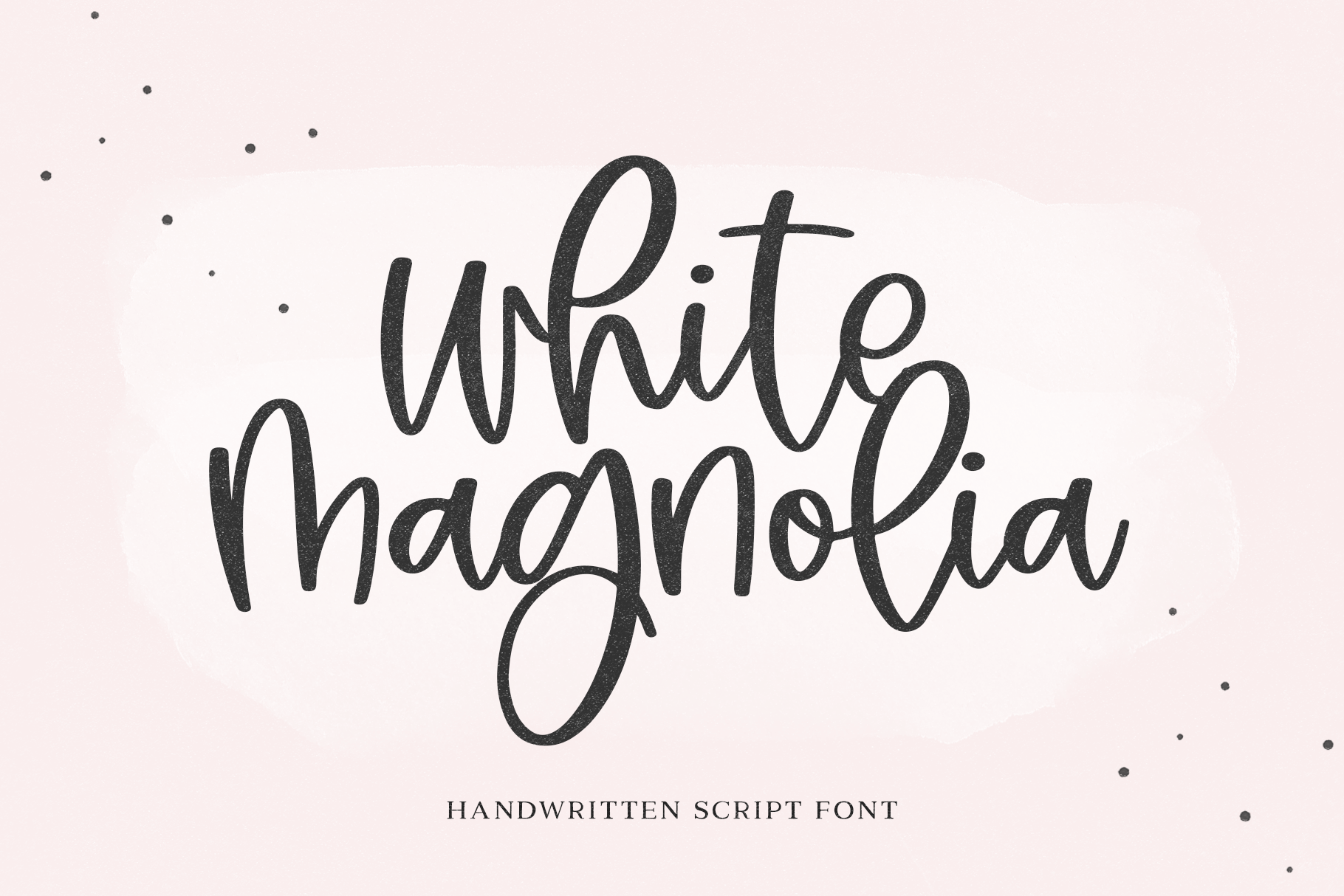
White Magnolia is a handwritten script font - with a fun and modern look!
This font is perfect for - wedding invitations, farmhouse signs, logos, branding, creating svg designs, cricut projects, crafting, posters, stickers and more!